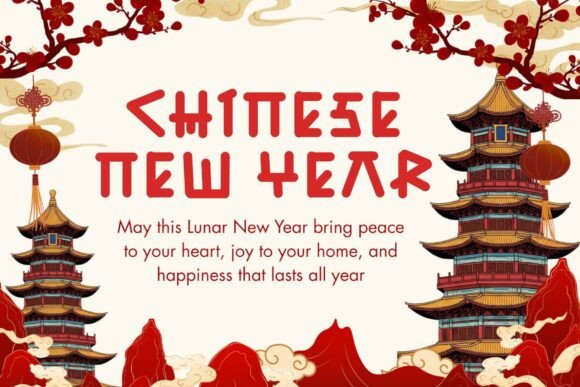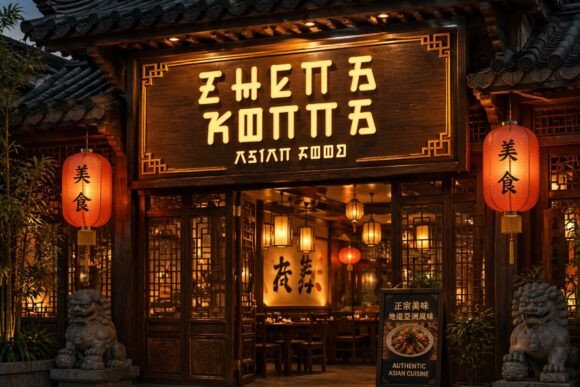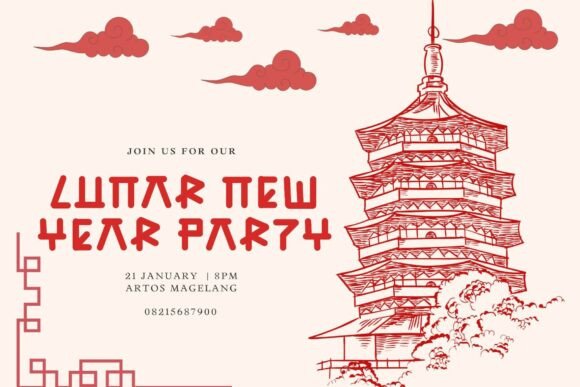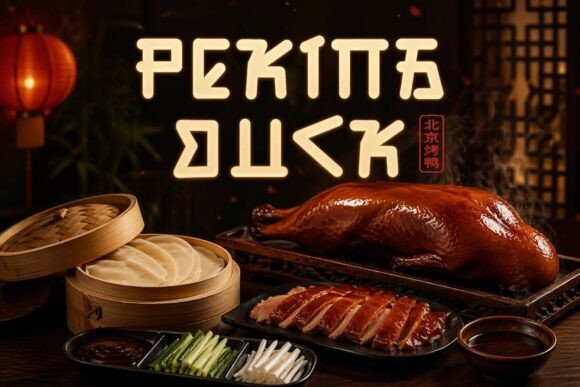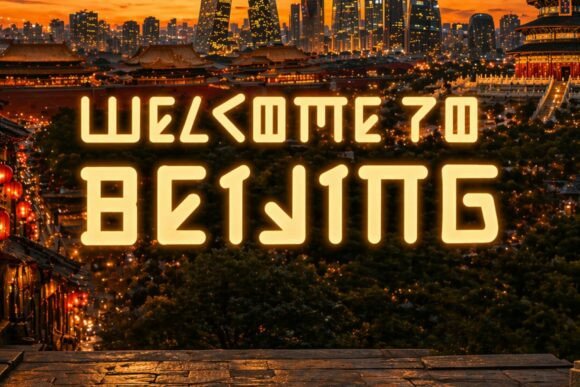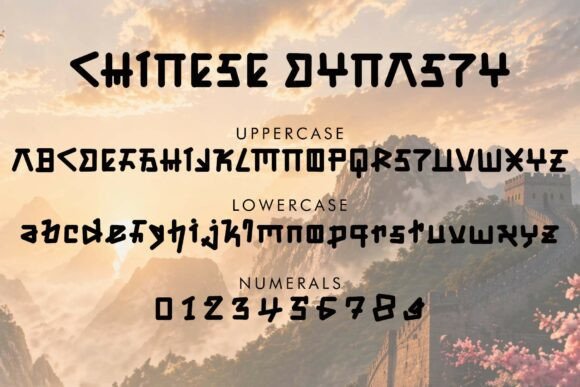
Introduction to Chinese Dynasty Font
“Chinese Dynasty” is a unique and elegant Chinese-style font.
It features uppercase and lowercase letters, numerals, punctuations, and multilingual support It’s perfect for exploring Asia, advertising, business branding, logos, print, banners, posters, invitations, summer, spring, Teacher’s Day, back to school, basketball, sports, culinary, and more.